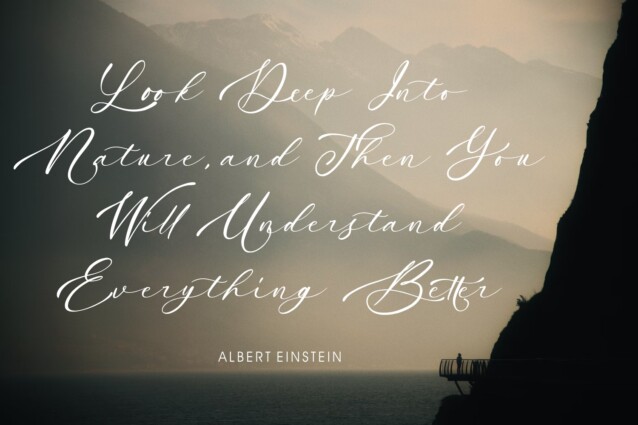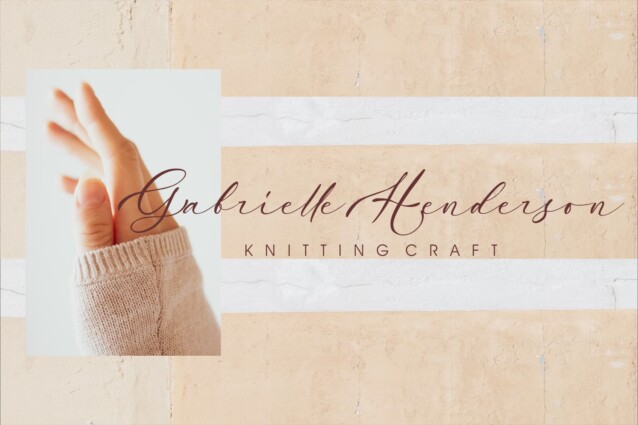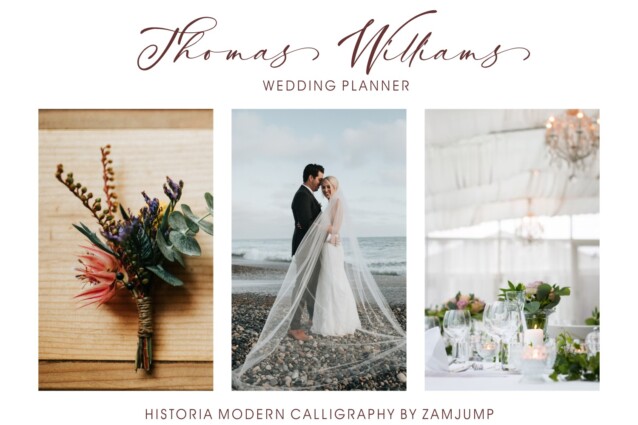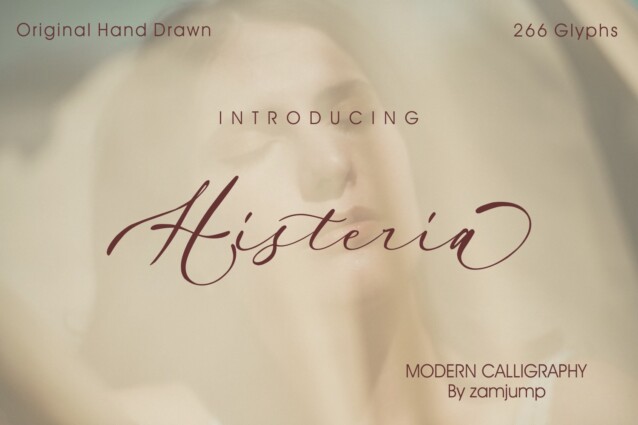
Histeria Typeface is an organic handwritten font crafted & designed by zamjumps-studio. Histeria is perfect for elegant logos, high-end packaging, wedding stationery, photography, websites, and any other project that requires a touch of handwriting and luxury. accompanied by an alternative ending swash so you can give your logo or name a special hand calligraphy look.